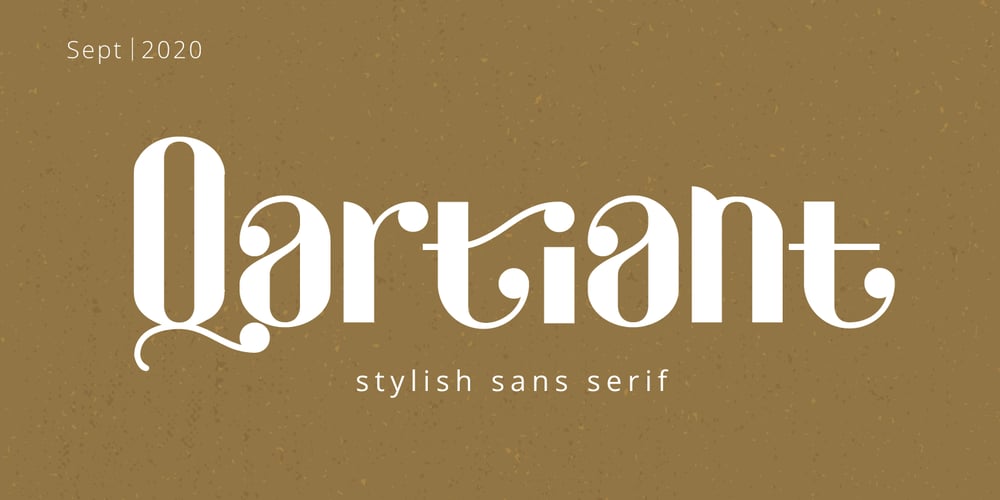
Qartiant Font Family was designed by Fadli Ramadhan Iskandar and published by Attype Studio. Qartiant contains 1 styles and family package options. Qartiant is a stylish sans serif font with clean and neat character. Qartiant gives powerfull messages and the typeface can be successfully used in logos Magazines, Posters, Branding, Websites greeting / wedding cards, packaging, fashion, make up, stationery, novels etc.Include :- Uppercase & lowercase- number & punctuation- Ligature- Multilingual supportHappy Designing!